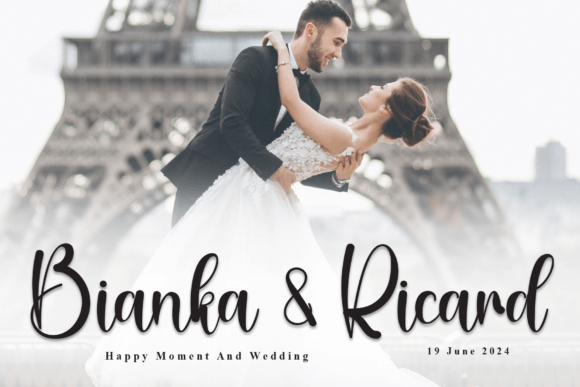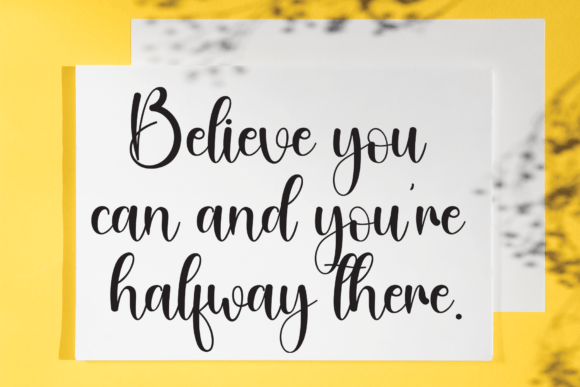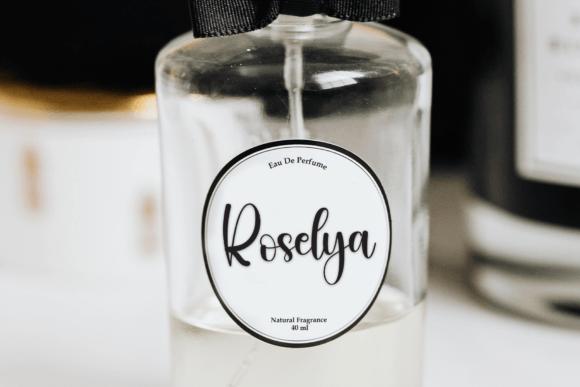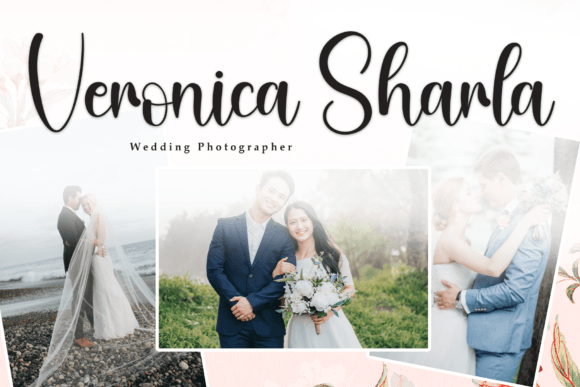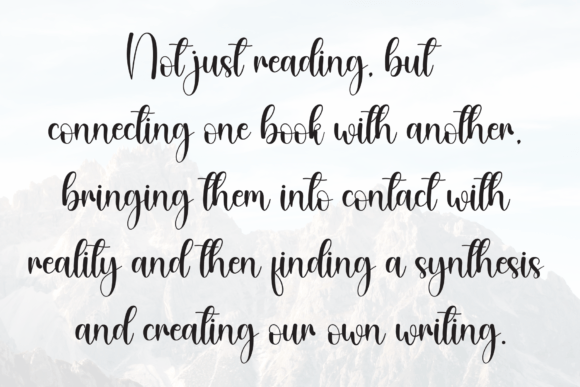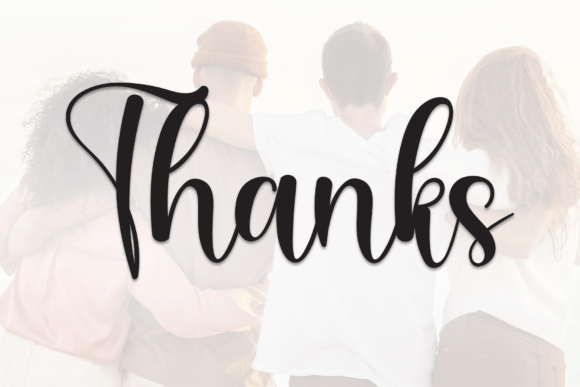
Introducing Friends Font: Elevate Your Designs with Elegance and Style
Are you a designer or crafter looking for a font that can add a touch of sophistication and whimsy to your projects? Look no further than Friends Font, a stunning script font that is sure to become your new go-to. With its elegant and refined appearance, Friends Font is perfect for a wide range of design applications, from wedding invitations and greeting cards to logos and business cards.
The Perfect Font for Wedding Invitations and More
Friends Font is a stylish and incredibly elegant script font that looks stunning on wedding invitations, thank you cards, and other special occasion designs. Its flowing script and delicate lines evoke a sense of romance and sophistication, making it the perfect choice for couples looking to add a touch of elegance to their wedding stationery. But Friends Font is more than just a one-trick pony – its versatility makes it suitable for a wide range of design projects, from quotes and greeting cards to logos and business cards.
What Makes Friends Font So Special?
So, what sets Friends Font apart from other script fonts on the market? Here are just a few reasons why designers and crafters are falling in love with this beautiful font:
- Elegant and Refined: Friends Font features a sophisticated and elegant design that is perfect for high-end designs and special occasions.
- Handwritten Touch: With its flowing script and delicate lines, Friends Font adds a touch of warmth and personality to any design.
- Versatile: Whether you’re designing wedding invitations, greeting cards, or logos, Friends Font is the perfect choice for any project that needs a touch of elegance and sophistication.
- Easy to Read: Despite its elegant appearance, Friends Font is surprisingly easy to read, making it perfect for designs that require a clear and legible font.
How to Use Friends Font in Your Designs
Friends Font is incredibly easy to use and can be incorporated into a wide range of design projects. Here are a few ideas to get you started:
- Wedding Invitations: Use Friends Font to create beautiful and elegant wedding invitations that set the tone for the big day.
- Greeting Cards: Add a touch of sophistication to your greeting cards with Friends Font, perfect for special occasions like birthdays, anniversaries, and holidays.
- Logos and Branding: Use Friends Font to create a unique and memorable logo for your business or brand.
- Quotes and Inspirational Designs: Add a touch of elegance to your quotes and inspirational designs with Friends Font.
Tips and Tricks for Getting the Most Out of Friends Font
Here are a few tips and tricks for getting the most out of Friends Font:
- Experiment with Different Sizes: Friends Font looks great in a variety of sizes, so don’t be afraid to experiment to find the perfect size for your design.
- Pair with Other Fonts: Friends Font pairs beautifully with other fonts, so try combining it with a bold font for a striking contrast.
- Use on Different Backgrounds: Friends Font looks great on a variety of backgrounds, from simple and solid to complex and patterned.
In conclusion, Friends Font is a beautiful and elegant script font that is perfect for designers and crafters looking to add a touch of sophistication and whimsy to their projects. With its refined appearance, versatility, and ease of use, Friends Font is sure to become a staple in any designer’s font collection. Whether you’re designing wedding invitations, greeting cards, logos, or more, Friends Font is the perfect choice for any project that needs a touch of elegance and style.